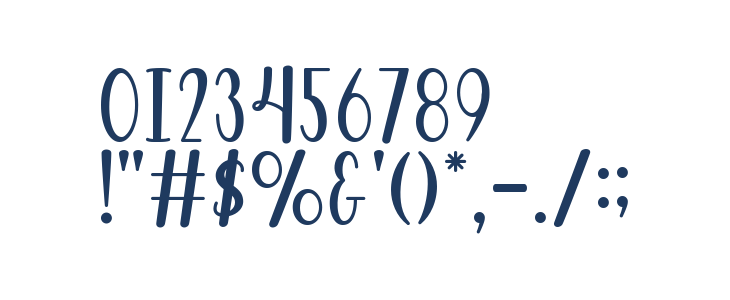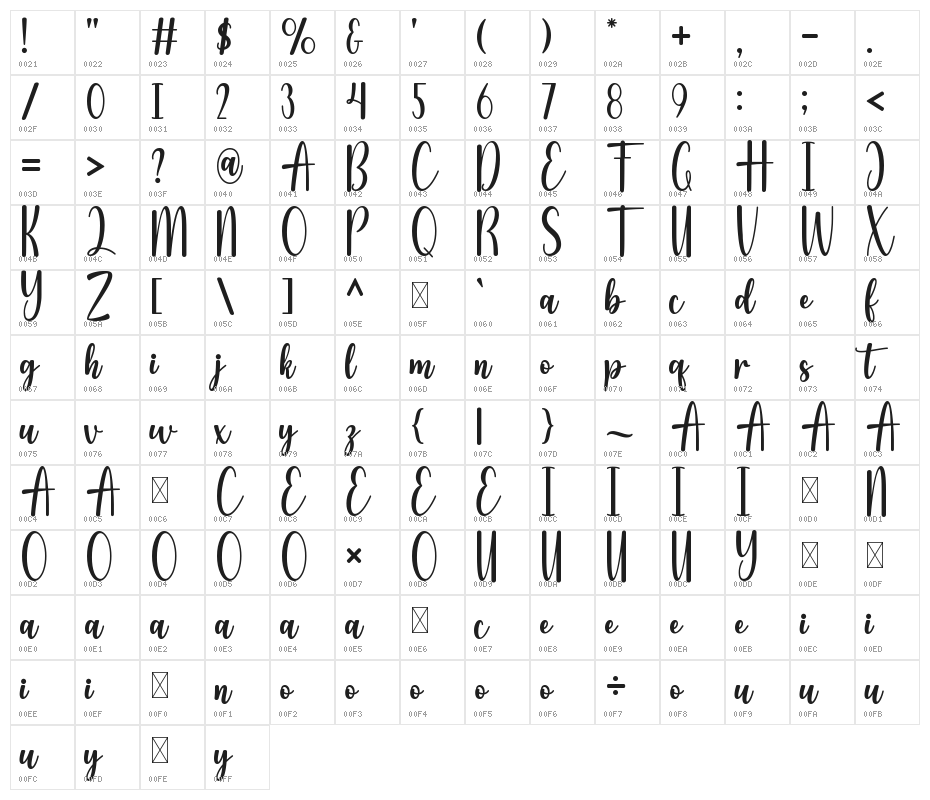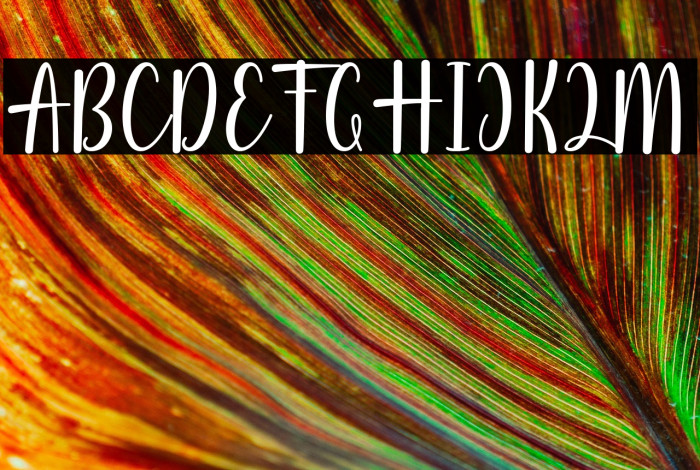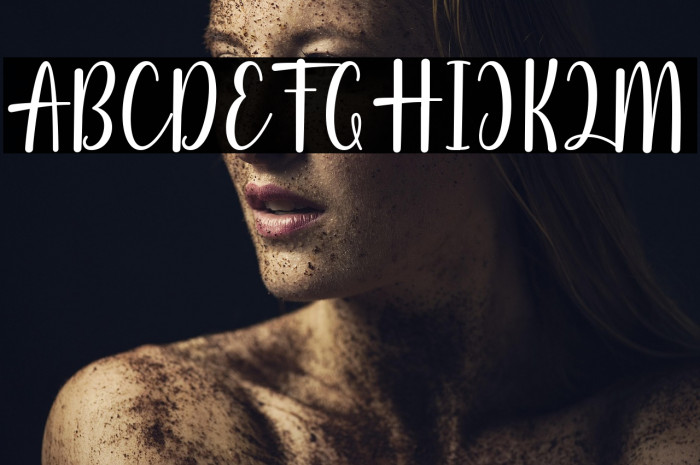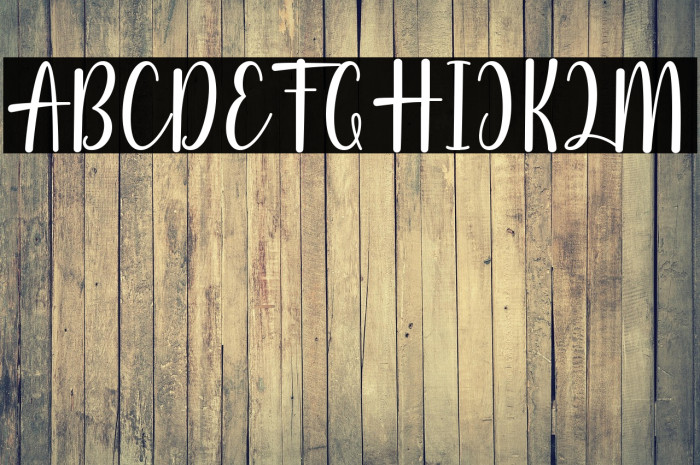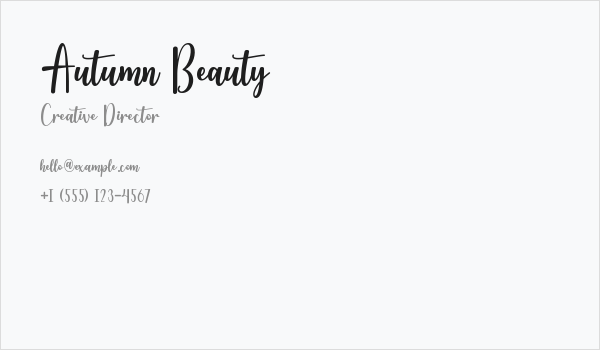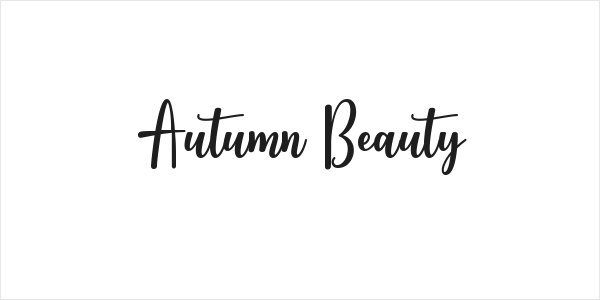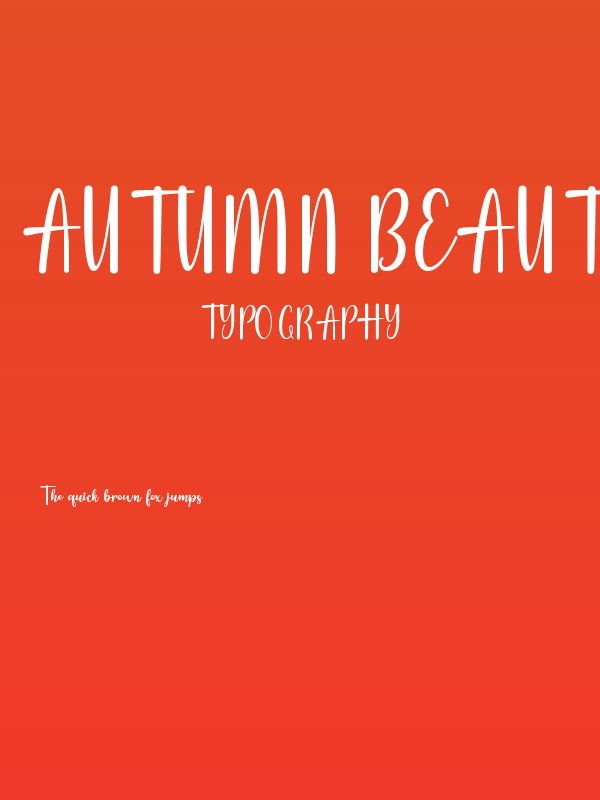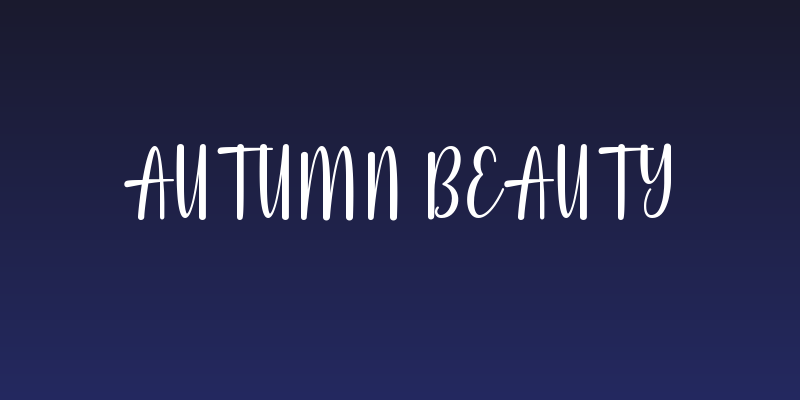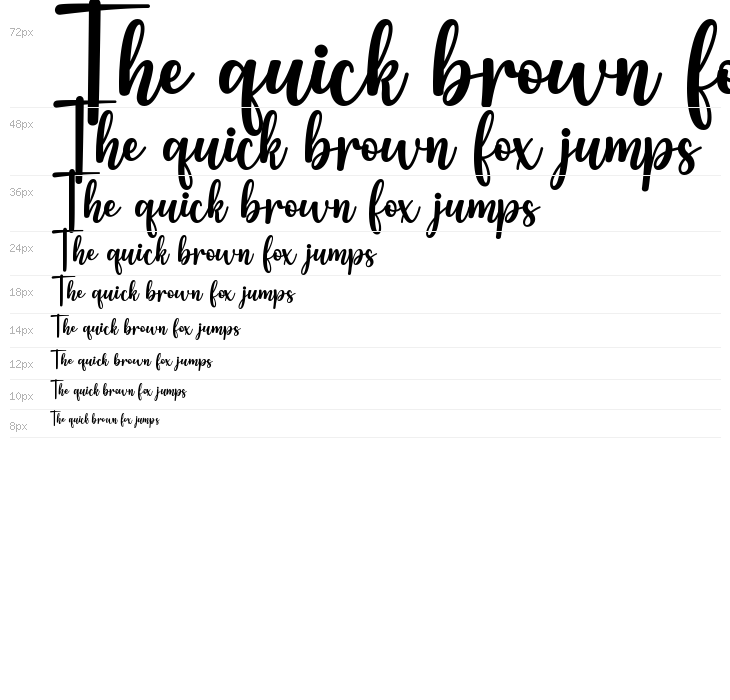
Autumn Beauty Font
Autumn Beauty Description
This font features a playful and elegant script style with a handwritten feel. The uppercase letters are tall and slender, with a slight slant and smooth curves that give them a graceful appearance. The lowercase letters are more rounded and connected, creating a flowing and cohesive look. The numbers and special characters maintain the same playful and elegant style, with consistent line thickness and smooth curves. This font exudes a sense of warmth and creativity, making it ideal for projects that require a personal touch.
| Use Case | Logos, Invitations, Social Media |
| Proposed Projects | Ideal for wedding invitations, greeting cards, branding, and social media graphics. |